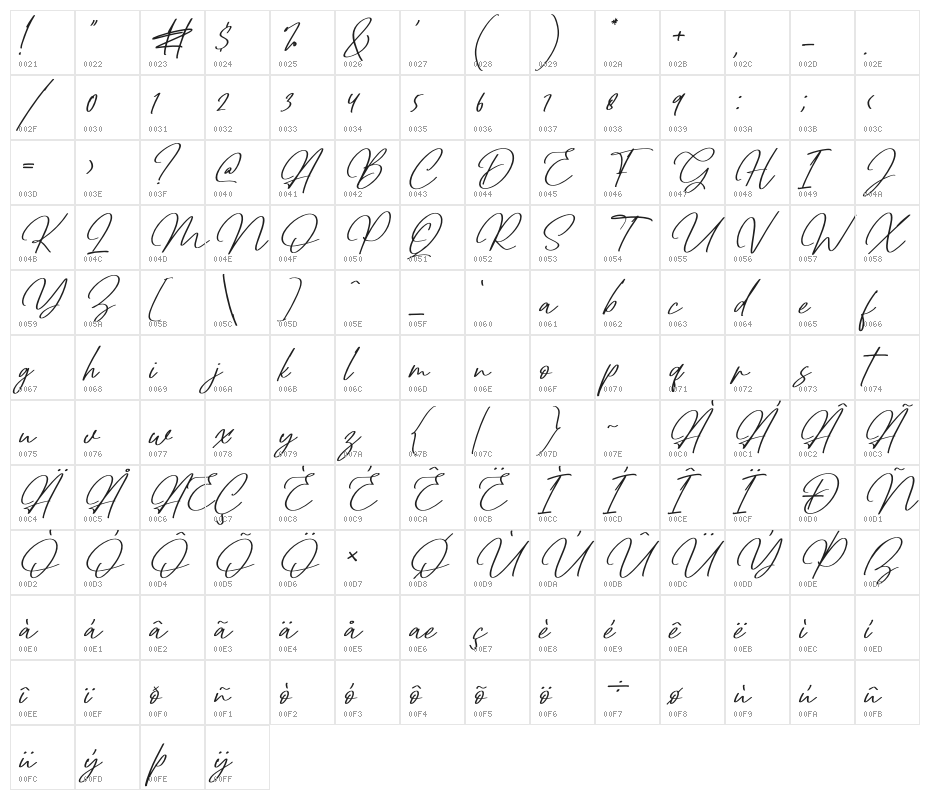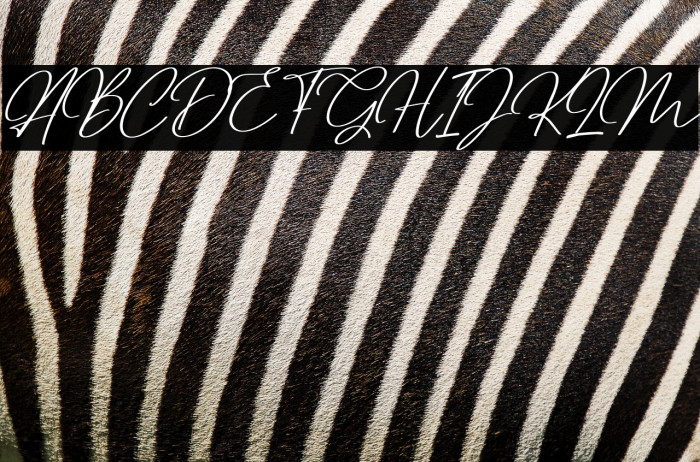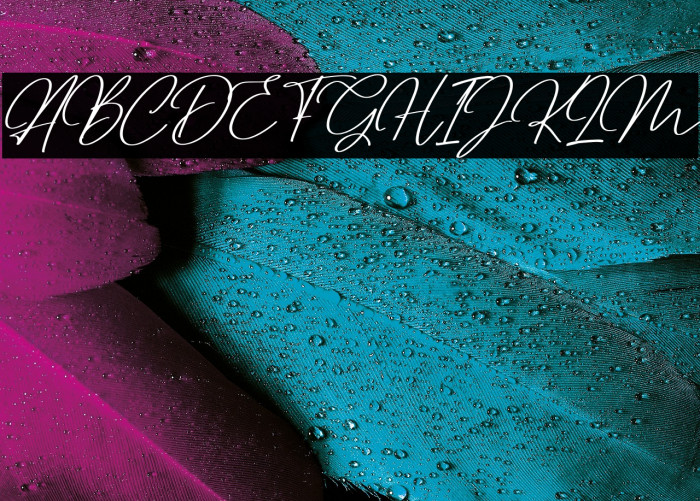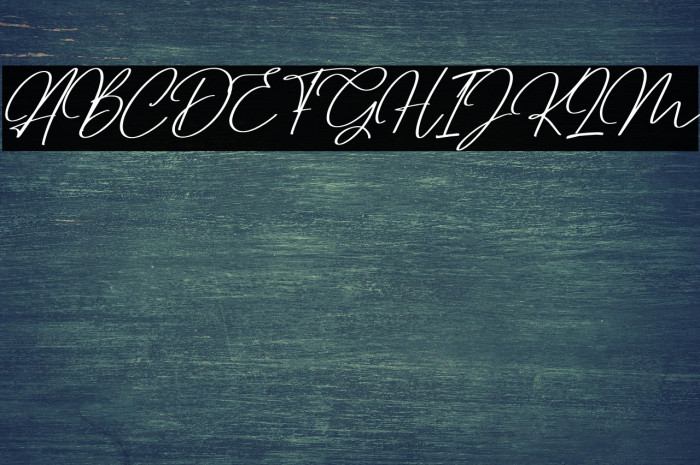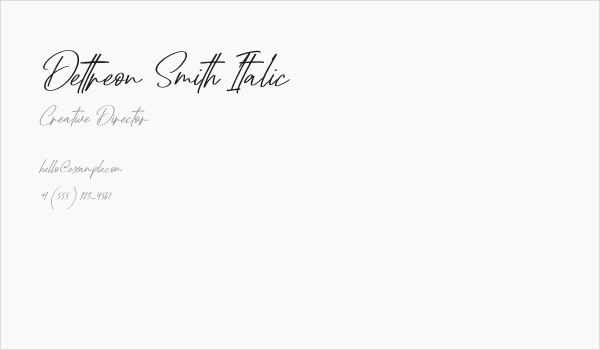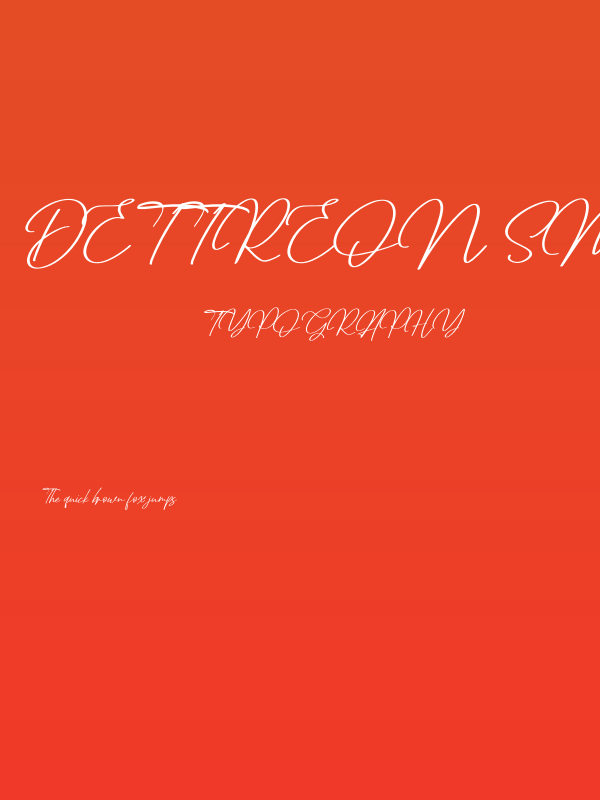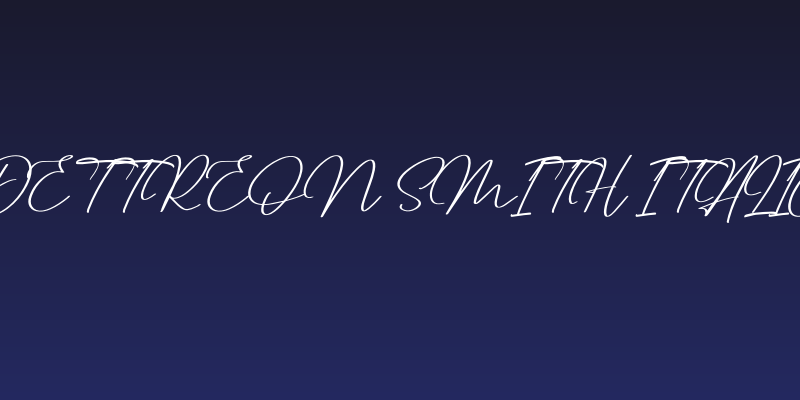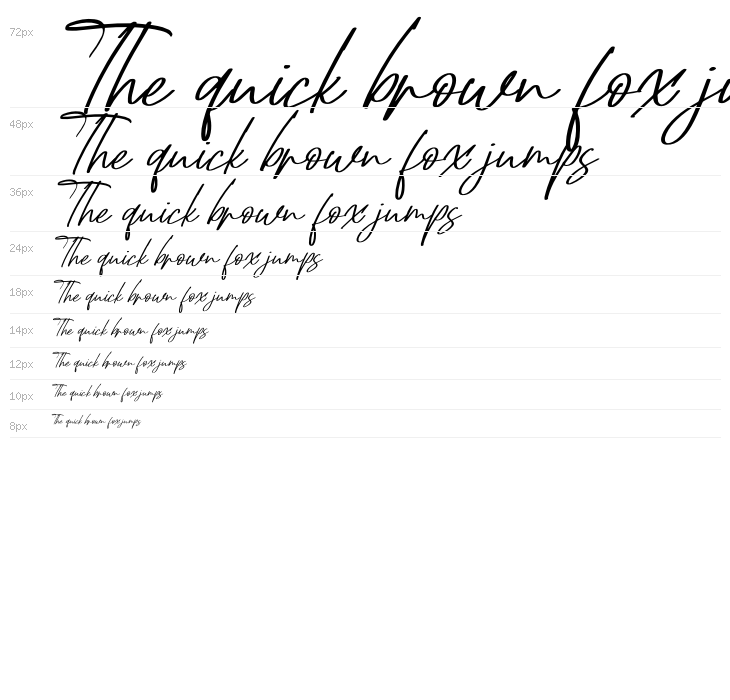
Dettreon Smith Italic Font
Dettreon Smith Italic Description
This font exudes a sophisticated and elegant handwritten style, characterized by its fluid and cursive letterforms. The strokes are smooth and connected, creating a seamless flow between characters. The uppercase letters maintain a consistent height, while the lowercase letters exhibit a slight variation in size, adding to the natural handwriting effect. The numerals and special characters are crafted with the same attention to detail, ensuring uniformity across the entire typeface. The overall design is both stylish and legible, making it suitable for a variety of creative applications.
| Proposed Projects | Ideal for wedding invitations, personal branding, elegant stationery, and creative logos. |